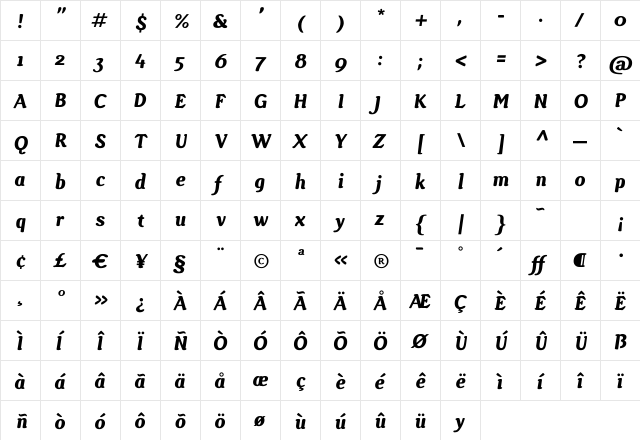
GopalBold Italic Regular
Design Context for GopalBold Italic Typeface
GopalBold Italic offers clean, dependable letterforms without strong stylistic allegiance, making it a practical choice for designers who need flexibility. The slanted form adds forward momentum and visual energy. The heavy weight commands attention and anchors typographic hierarchies.